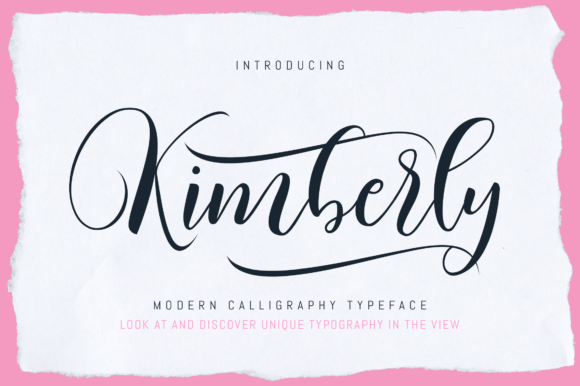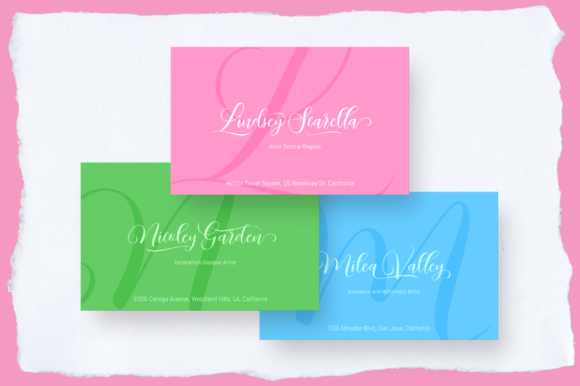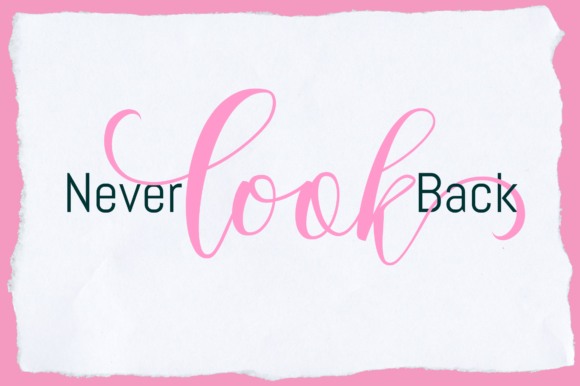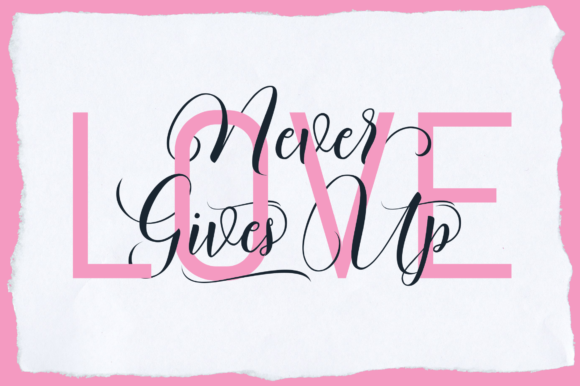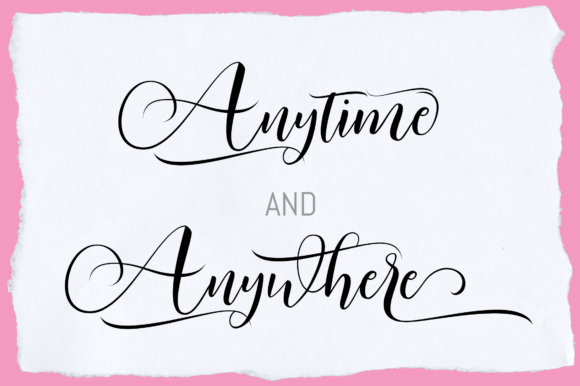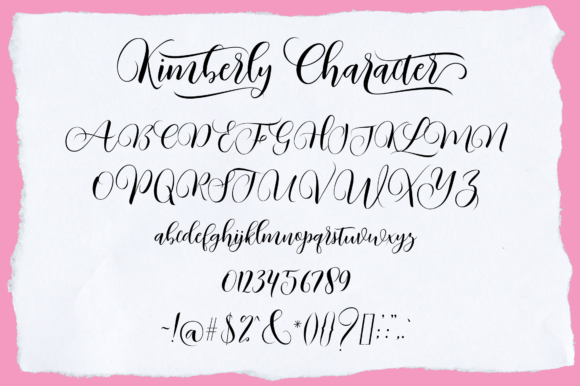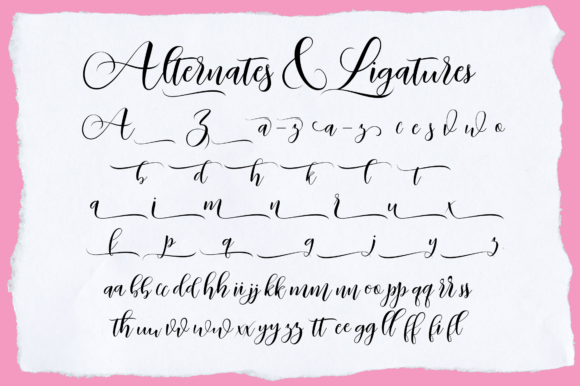
Unleash the Art of Handwritten Design with the Kimberly Script Font
As you sit at your desk, pen poised over paper, you’re hit with a creative block. The blank page stares back at you, and your mind goes blank. But then, you remember the joy of writing with a fountain pen, the fluid motion of your hand as the ink flows onto the page. It’s this feeling that the Kimberly Script Font aims to capture – the essence of handwritten design that’s both elegant and authentic.
This modern calligraphy script font is the perfect solution for designers looking to add a personal touch to their work. Whether it’s a wedding invitation, a logo, or a typographic quote, the Kimberly Script Font will give your design a unique, handwritten look that’s sure to impress. With its elegant curves and fluid lines, this font is a valuable addition to any designer’s toolkit.
Kimberly Script Font Key Features
- Unique Characteristics: Distinctive, elegant script design with swashes and flourishes, ideal for creative and artistic projects
Kimberly Script Font Review
I recently had the chance to work with the Kimberly Script Font, and I must say it’s a unique addition to any design project. ✨ One of the things that stood out to me was the elegant and sophisticated feel of the font. It’s perfect for creating a high-end or luxury brand identity.
Here are some of the things that work well with this font:
- ✨ Elegant and sophisticated feel
- ✨ Great for luxury or high-end brand identities
- ✨ Versatile and can be used for a variety of projects
- ✨ Easy to read and recognize
- ⚠️ Can be difficult to read at small font sizes
- ⚠️ May not be suitable for digital applications where readability is key
- ⚠️ Can be a bit too ornate for some designs
Overall, I would give the Kimberly Script Font a solid 4 out of 5 stars. While it may have some limitations, it’s a beautiful and elegant font that can add a touch of sophistication to any design project.
The Kimberly Script Font is ideal for creating elegant and sophisticated designs, such as:
- Branding and logo designs
- Editorials and magazine covers
To get the most out of this font, experiment with different font sizes, styles, and combinations to achieve a unique and eye-catching look.
Alternatives to Kimberly Script Font
Carolyna Pro is a beautiful script font perfect for wedding invitations, greeting cards, and any other design that requires elegance and sophistication. It has a more refined and polished look compared to Kimberly Script Font, making it ideal for high-end designs. Use Carolyna Pro when you want to convey luxury and refinement.
Great Vibes is a modern script font that’s perfect for designs that need a touch of playfulness and whimsy. It has a more relaxed and casual feel compared to Kimberly Script Font, making it ideal for social media graphics, blog posts, and other informal designs. Use Great Vibes when you want to add a fun and lighthearted touch to your design.
Alex Brush is a elegant script font that’s perfect for designs that need a touch of sophistication and refinement. It has a more classic and timeless feel compared to Kimberly Script Font, making it ideal for luxury brands, high-end fashion, and other designs that require a sense of tradition and heritage. Use Alex Brush when you want to convey elegance and sophistication.
Ostrich Sans is a modern script font that’s perfect for designs that need a touch of quirkiness and playfulness. It has a more experimental and avant-garde feel compared to Kimberly Script Font, making it ideal for designs that require a bold and eye-catching look. Use Ostrich Sans when you want to add a touch of edginess and uniqueness to your design.
Creative Project Ideas Using Kimberly Script Font
Project 1: Wedding Invitation Design
Create a beautiful and elegant wedding invitation design using Kimberly Script Font. This font is perfect for adding a touch of sophistication and romance to your invitation.